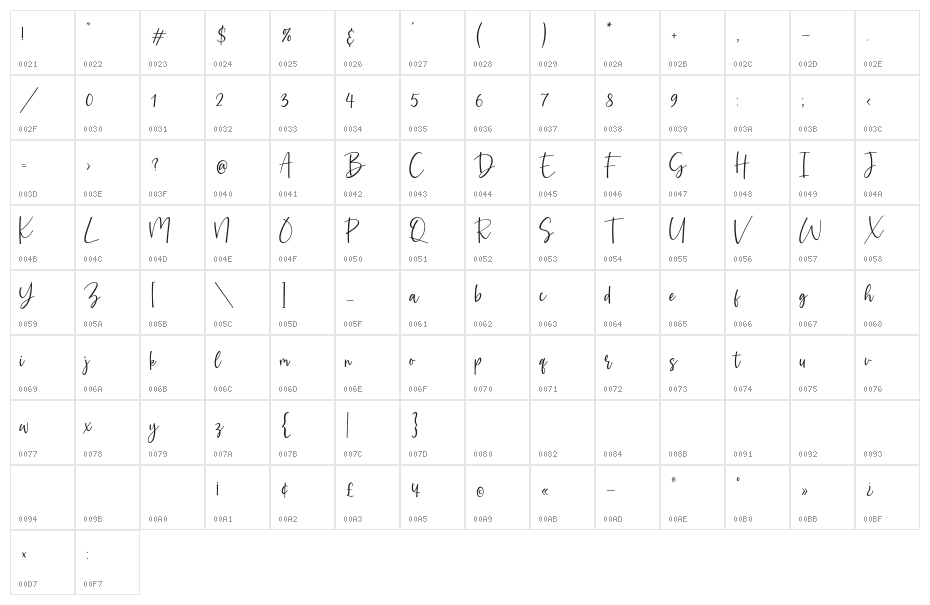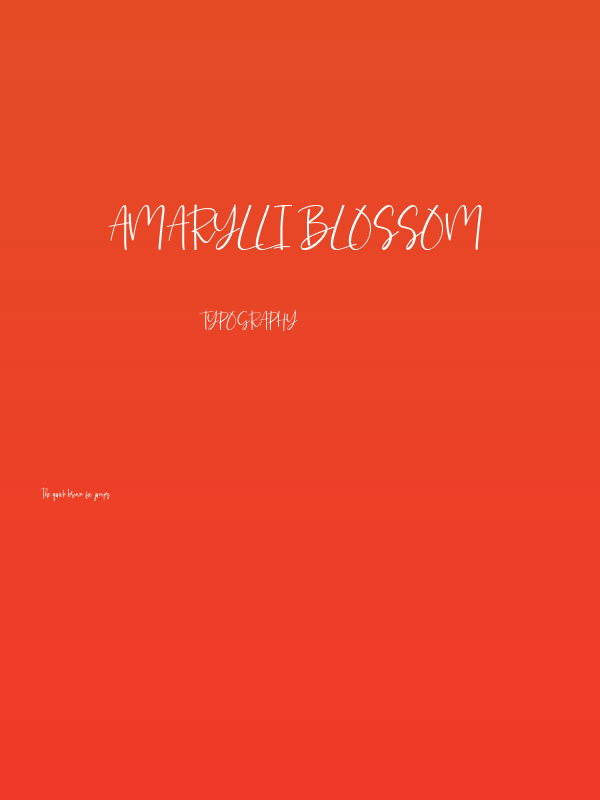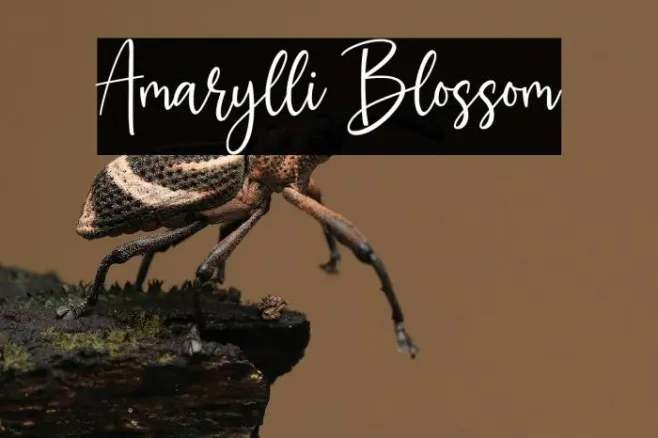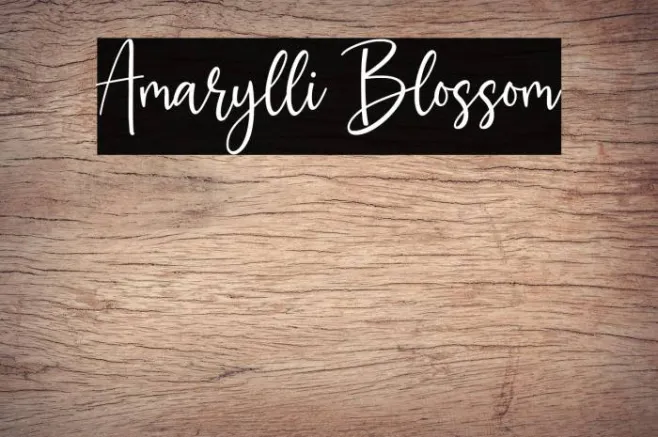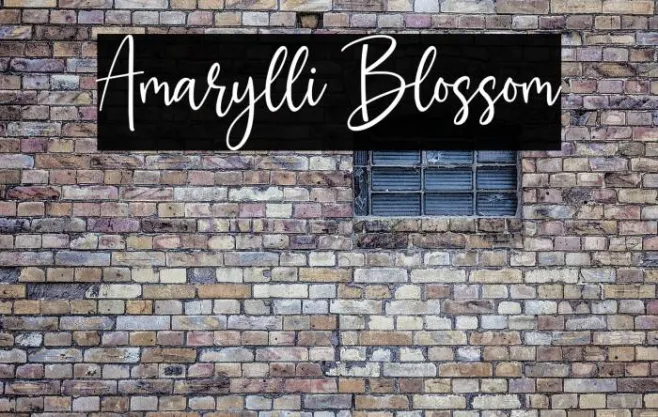
Amarylli Blossom Font
Amarylli Blossom Description
This font features a playful and elegant handwritten style, characterized by its fluid and natural strokes. The uppercase letters are tall and slightly narrow, giving a sense of height and grace. The lowercase letters maintain a consistent flow, with some letters featuring loops and swashes that add to the font's charm. The numerals are clear and legible, matching the overall aesthetic. Special characters are thoughtfully designed, maintaining the whimsical and artistic feel. This font is perfect for projects that require a personal touch, such as invitations, greeting cards, or branding materials.
| Proposed Projects | Ideal for wedding invitations, personal branding, greeting cards, and artistic projects. |